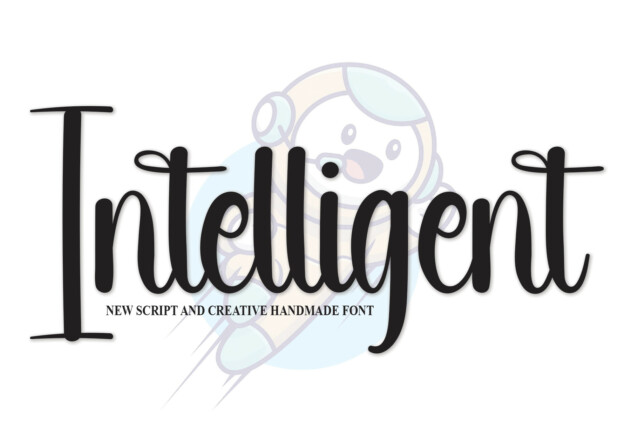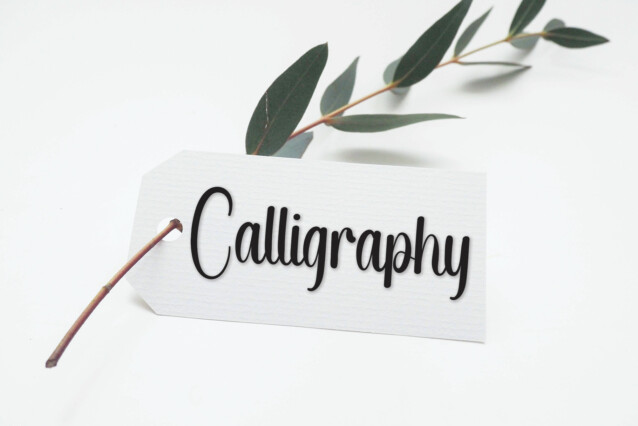
Intelligent Script Font
Intelligent Script Font is a cool and relaxed handwritten font. This versatile font has a wide spectrum of applications ranging from greeting cards to headlines and is guaranteed to add a neat and natural feel to your next project!